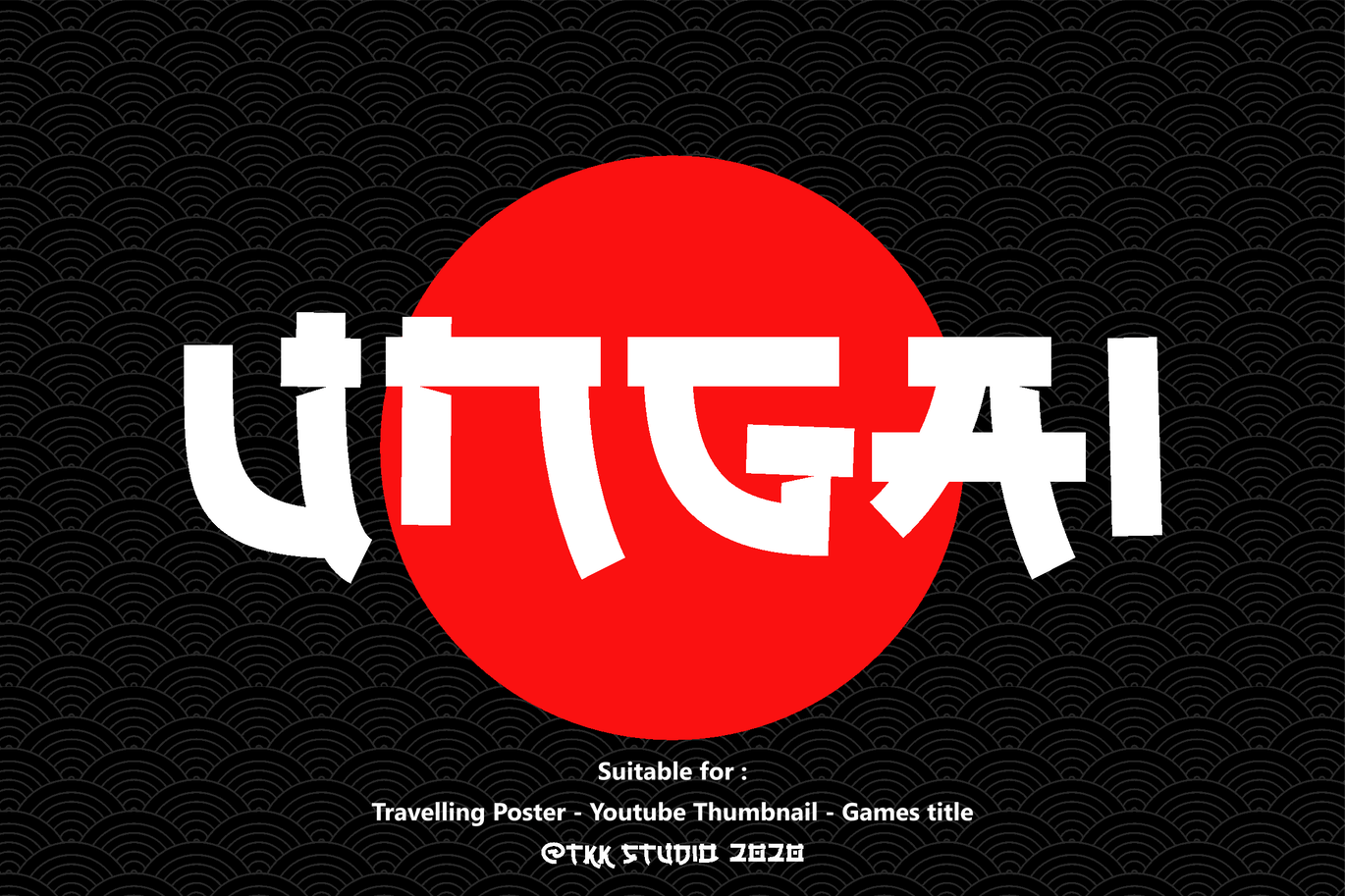
UNGAI - Japanese Font
Ungai Japanese font or Jap font took katakana shape, and take it to the modern fast world. With cut out on the inner connection, emphasize the fast and full action world we’re facing. Suit perfectly for Online Games, poster, movie title, fast food menu, magazine, youtube covers, youtube thumbnails, social media page covers and so on… Happy designing. Whatís Included :